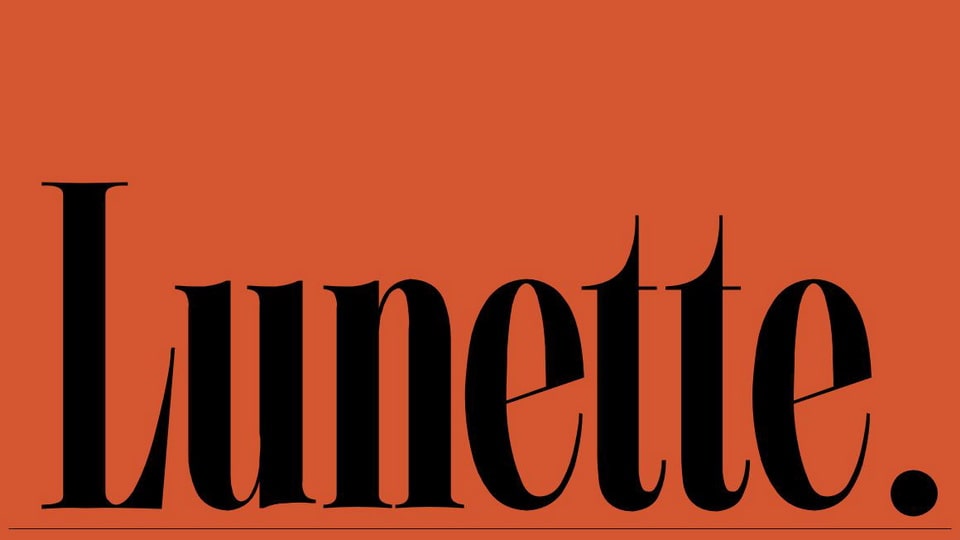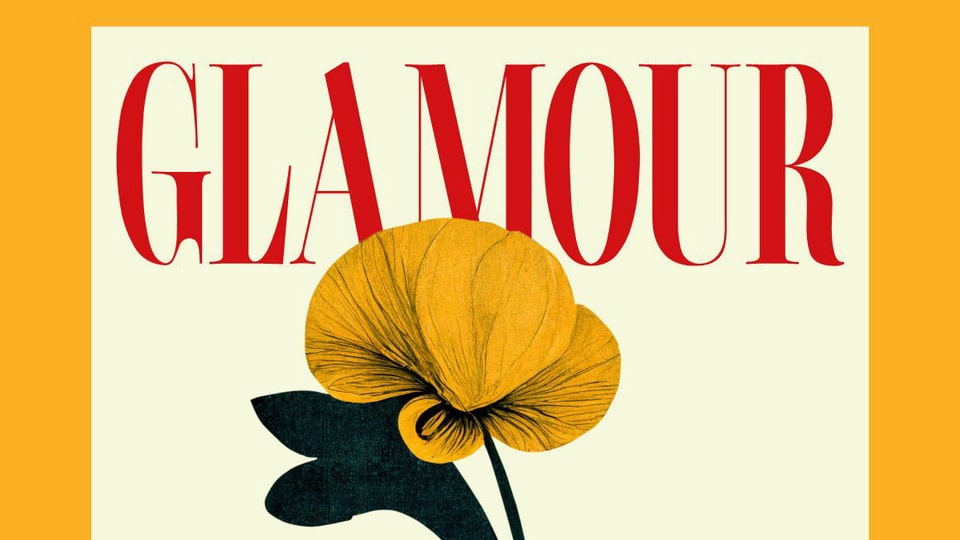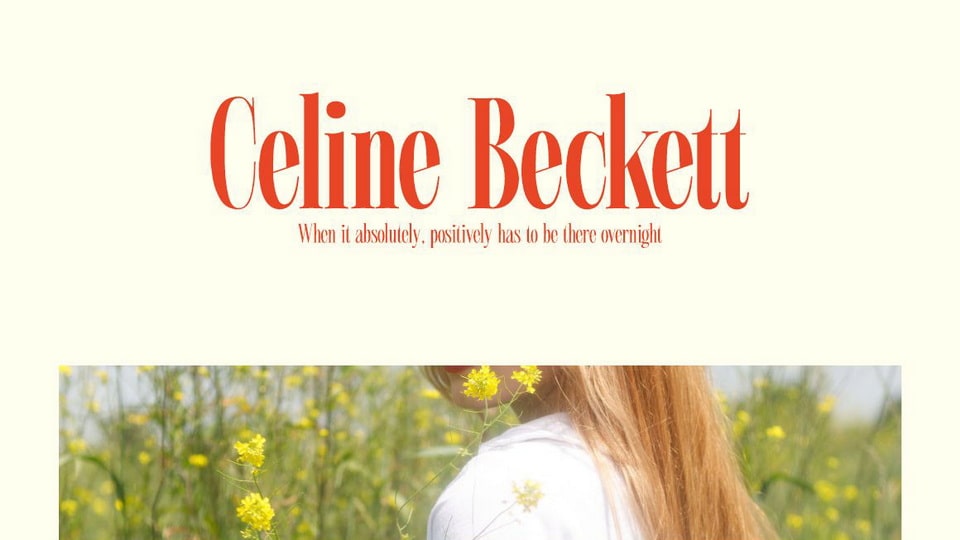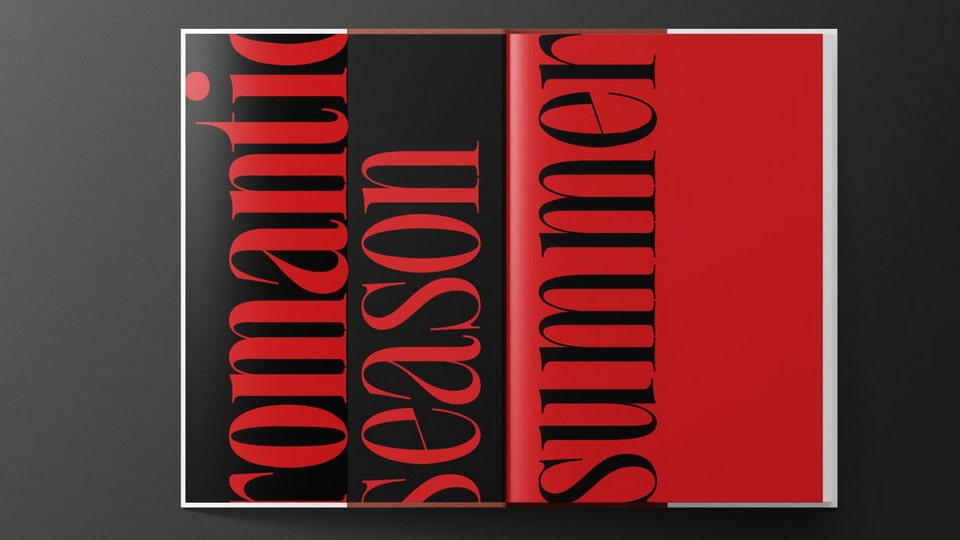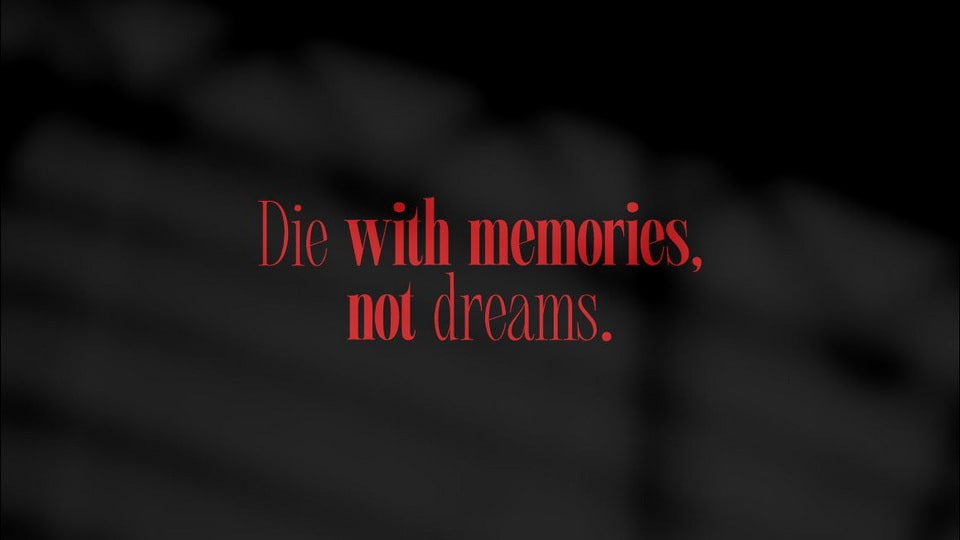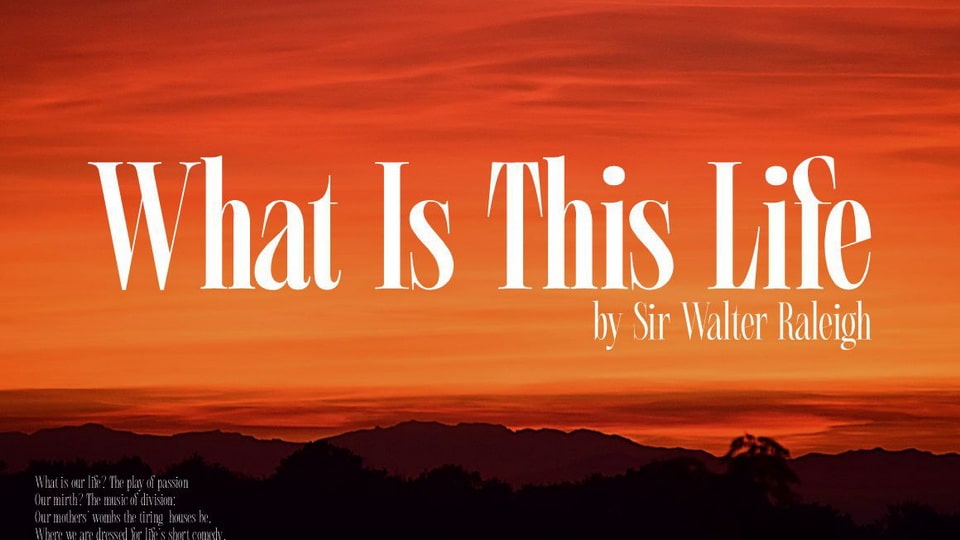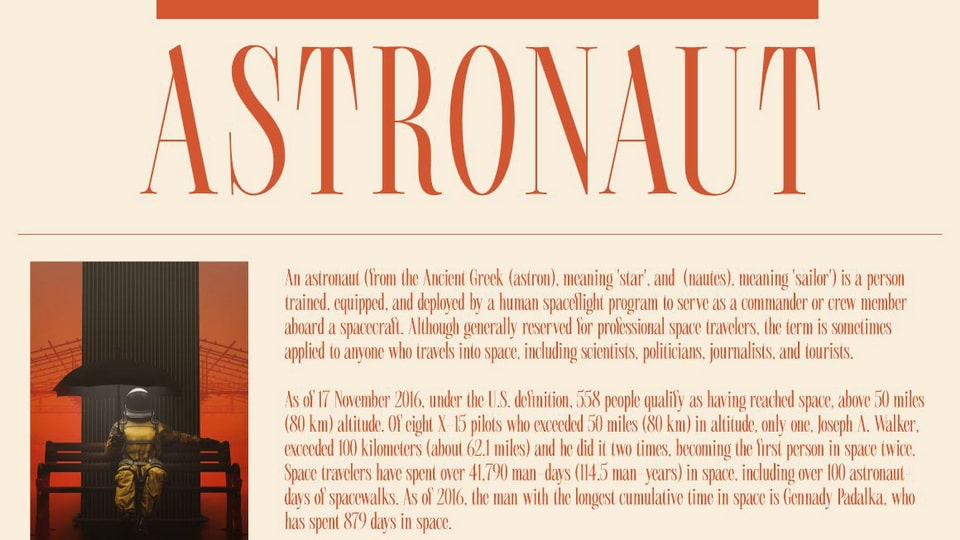
Lunette is a strong and classy serif typeface with an elegant touch. It’s a unique modern font that a mixes of old and new serif styles. Lunette boasts 3 stunning styles, with beautiful upper and lower case letters, numbers, and punctuation marks.
Lunette is perfectly suitable for a layout design for quotes or body copy, best used as a display for headings, logos, branding, magazines, product packaging, invitations: logotypes, and much more.